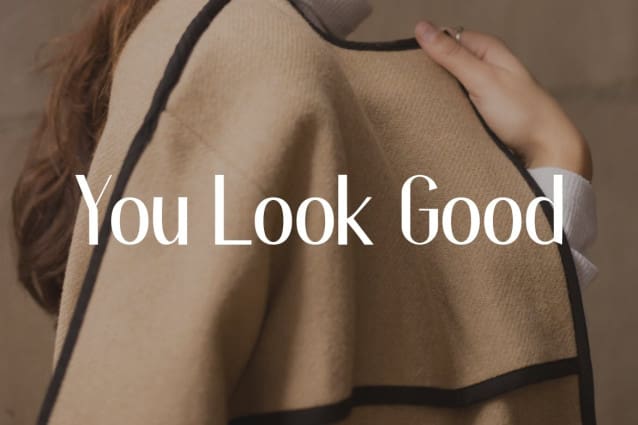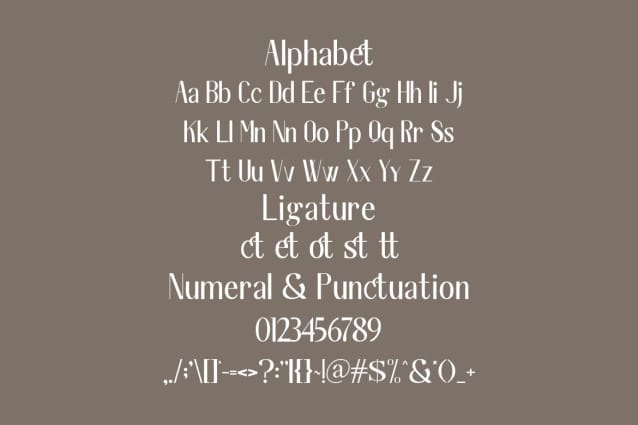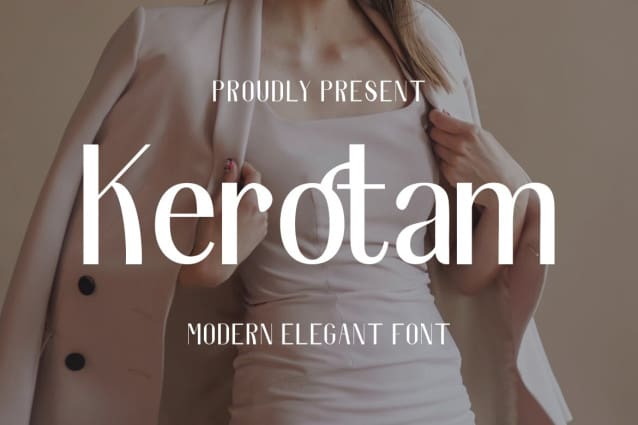
Kerotam Font
Kerotam Font is a modern and authentic font. Perfect for professional and branding needs of a product. This font is suitable for any branding projects like quotes, logo, blog header, poster, banner, letter, invitation, stationery, etc. Designed as a versatile, flexible tool that can be used on a range of projects and media. Exceptional in a wide range of contexts